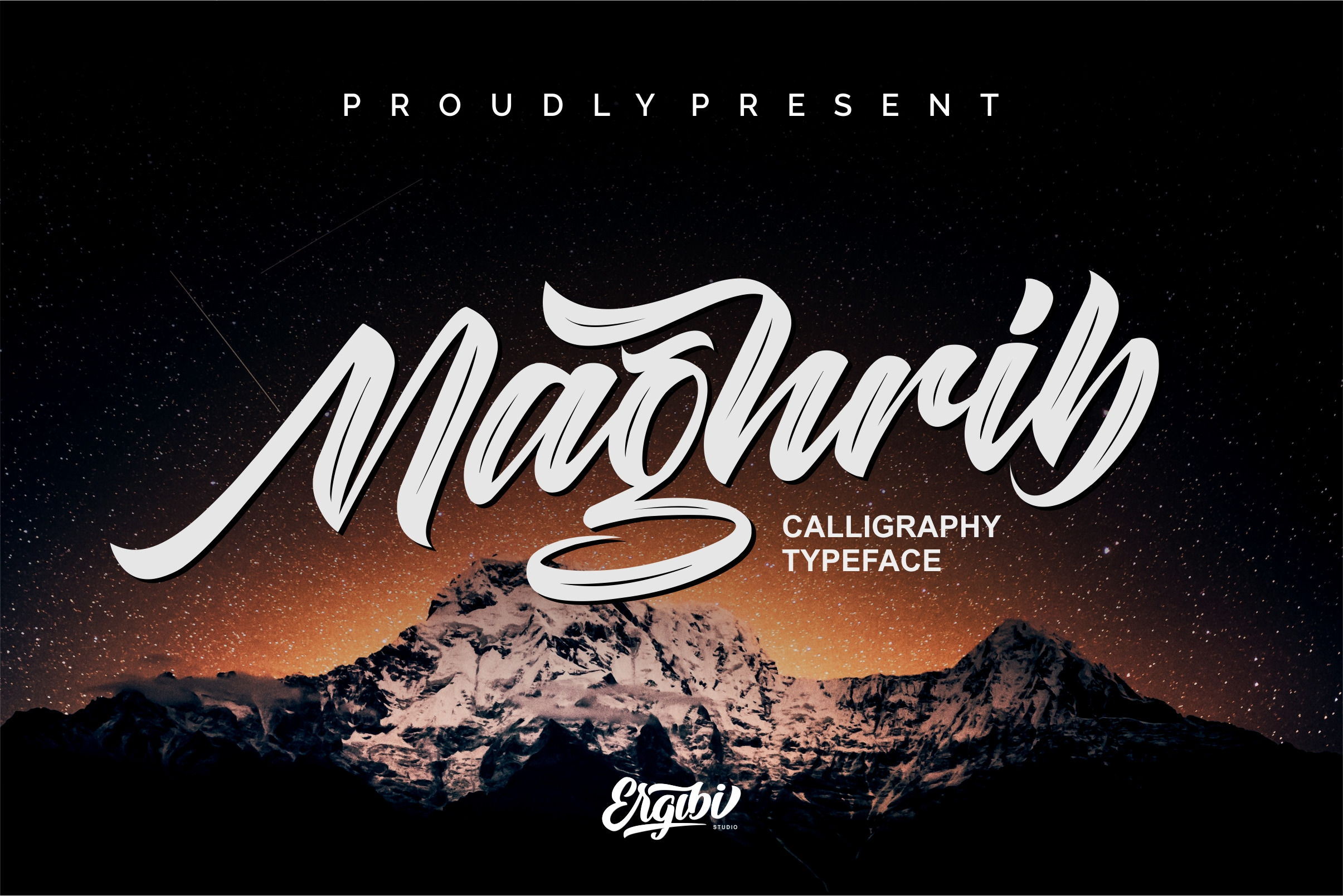
Maghrib - Calligraphy Typeface
Introducing Maghrib Calligraphy Typeface! from our collection, made with care and full, from this font two clean shapes and textures and have additional swash. This font is ideal for logos, as badge, apparel, product packaging, headline, T-shirt/apparel, Poster, or anything which needs a Calligraphy.